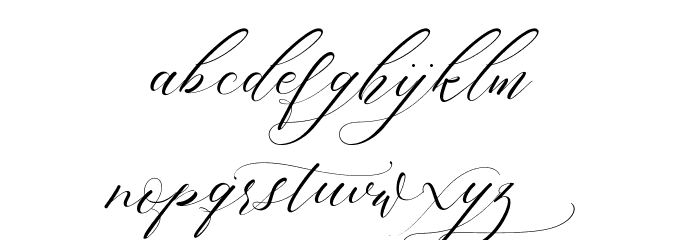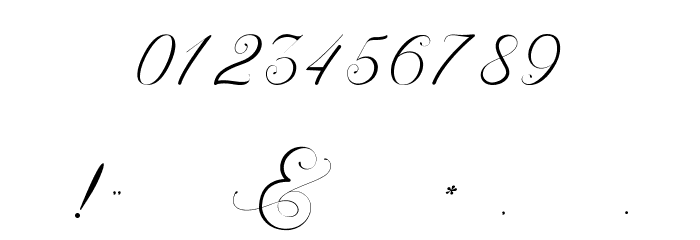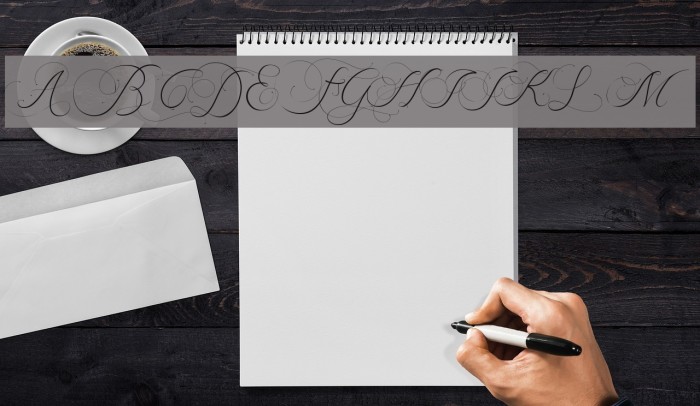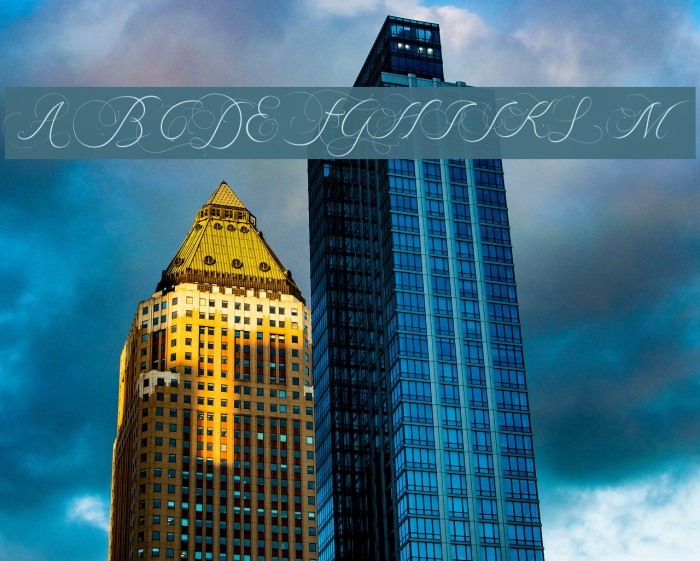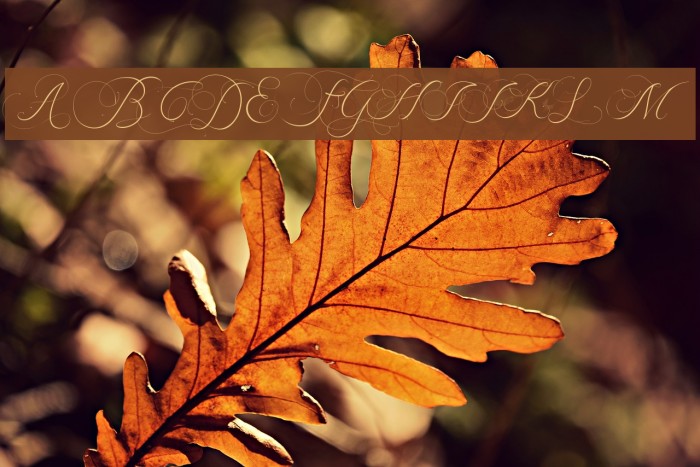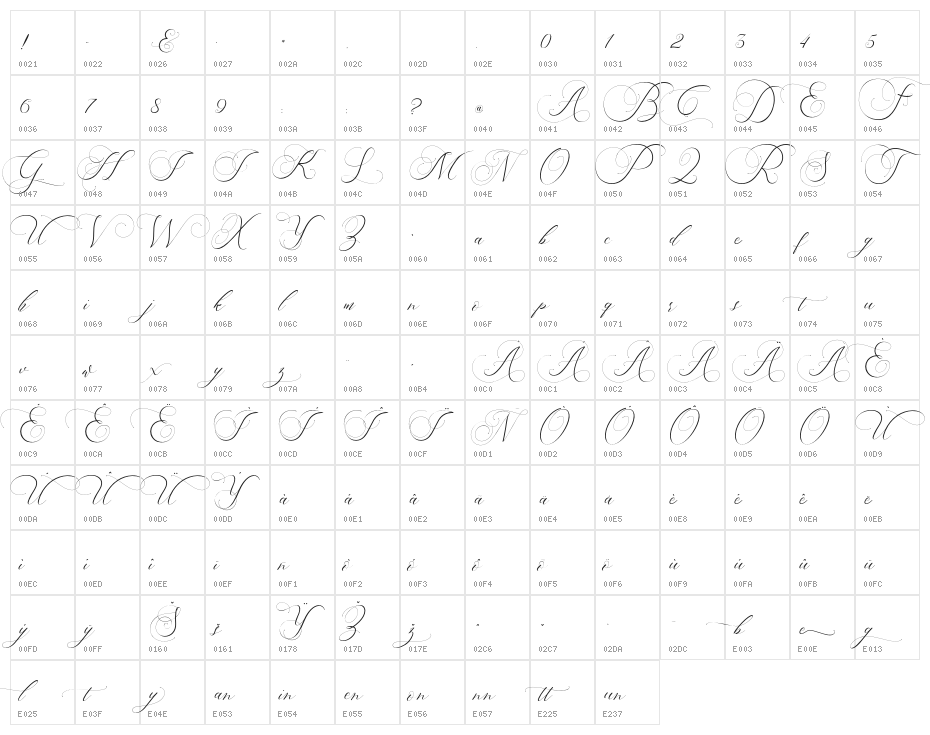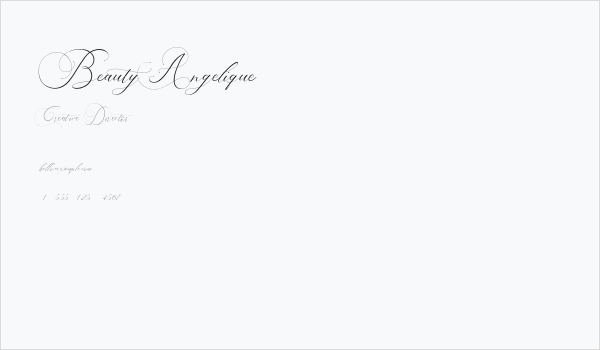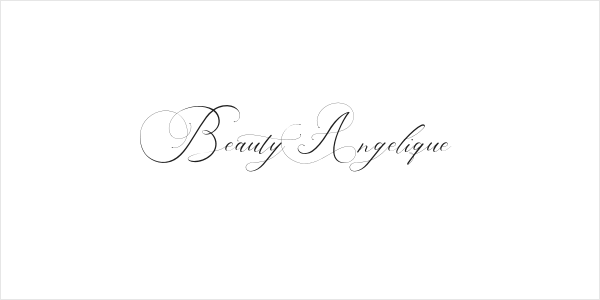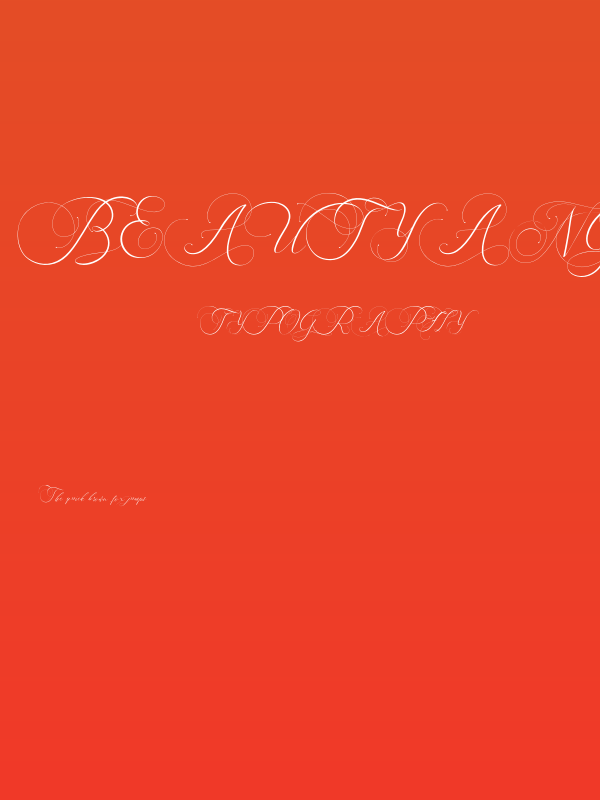
BeautyAngelique Font
This elegant script font features intricate and flowing letterforms, characterized by its graceful curves and elaborate swashes. The uppercase letters are particularly ornate, with extended flourishes that add a sense of sophistication and luxury. The lowercase letters maintain a consistent style, with smooth connections that enhance readability while retaining a decorative flair. The numerals are styled to match the overall aesthetic, offering a cohesive look across all characters. Special characters, such as the ampersand and punctuation marks, are designed with the same attention to detail, making them perfect for adding a touch of elegance to any project.
An elegant script font with intricate swashes and flowing letterforms.
- Proposed Projects: Ideal for wedding invitations, luxury branding, high-end product packaging, and elegant stationery design.
- Use Case: Logos, Invitations, Branding